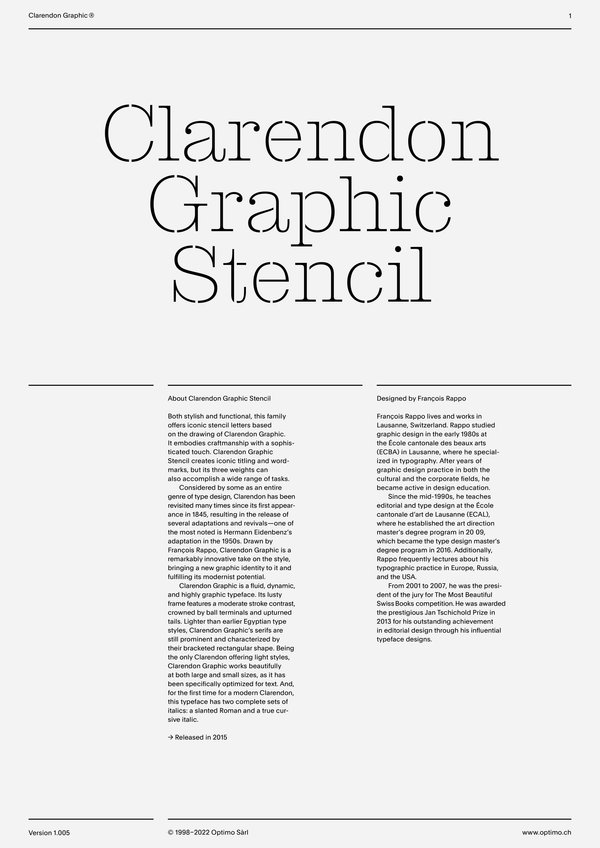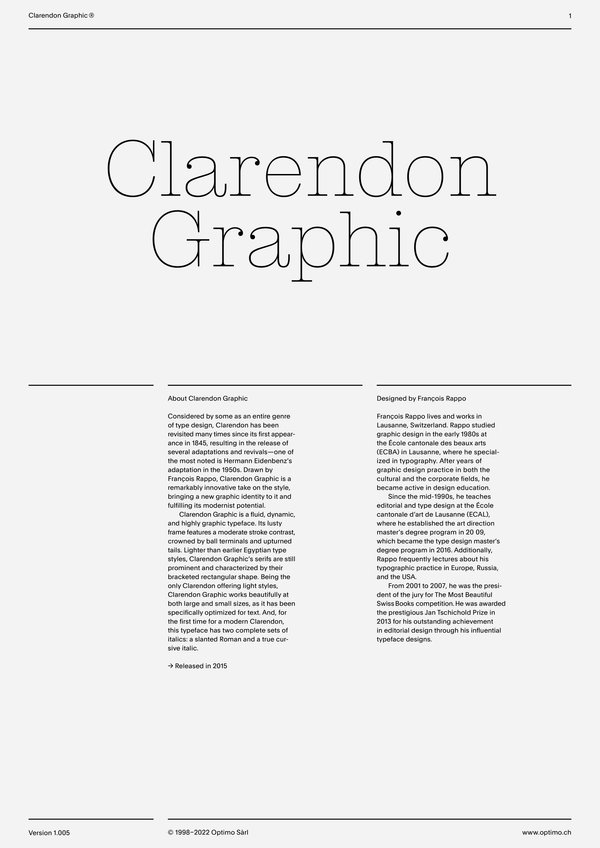
Clarendon Graphic
Clarendon Graphic Stencil
Case Sensitive Forms
All Caps [cpsp]
This function formats the text in uppercase and adjusts spacing between all capital letters. It also applies the ‘Case Sensitive Forms’ feature which replaces certain characters with alternates that are better suited for all capital text, especially related to punctuation.
Contextual Alternates
Contextual Alternates [calt]
This feature adapts the position of a glyph after its surrounding context. For instance, a dash placed between two uppercase letters or numbers will be replaced by an uppercase version of the dash, slightly higher. This feature is usually active by default in Adobe applications.
Contextual Alternates
[calt]
This feature adapts the position of a glyph after its surrounding context. This feature is usually active by default in Adobe applications.
Tabular Lining Figures
Tabular Lining Figures [tnum–lnum]
Based on the proportions of the capitals, lining figures have an invariable height. With the combination of the tabular spacing format, the width of each numeral is uniformized. This feature is useful when numerals need to all lined up. It facilitates the reading of numbers set within columns or tables. As some applications don’t have access to this feature, proportional figures are set as the default choice.
Proportional Oldstyle Figures
Proportional Oldstyle Figures [pnum–onum]
Based on the design of the lowercase, oldstyle figures have varying ascenders and descenders. Like most of the letters, each number has an appropriate width based on its shape. The combination of oldstyle figures with proportional setting generate numerals perfectly adapted for text.
Tabular Oldstyle Figures
Tabular Oldstyle Figures [tnum–onum]
Based on the design of the lowercase, oldstyle figures have varying ascenders and descenders. With the combination of the tabular spacing format, the width of each numeral is uniformized. This feature is useful when numerals need to all lined up. It facilitates the reading of numbers set within columns or tables.
Fractions
With this feature, any numbers separated by a slash will automatically turn into a fraction. To fit in fraction configuration, numerals have been designed smaller and their weights have been adjusted to suit the typeface.
This feature replaces any letter following a numeral with its matching superior letters. Spanish, Portuguese and Italian language uses the feminine and masculine ordinal indicators such as ‘a’ for for 1º, 1ª. Ordinals are designed to match the weight of the typeface.
Numerators [numr]
This feature substitutes glyphs with their matching smaller alternates. The numerators are the same glyphs that are used to create fractions, their vertical position remains within the capital letters height. These glyphs are reduced in size and designed slightly heavier to keep them consistent with the rest of the font.
This feature substitutes glyphs with their matching smaller alternates and low position glyphs. The denominators are the same glyphs that are used to create fractions, their vertical position remains within the base line. These glyphs are reduced in size and designed slightly heavier to keep them consistent with the rest of the font.
Superscript/Superiors
This feature substitutes glyphs with their matching smaller alternates which are set slightly above the height of the capital letters. These glyphs are reduced in size and designed slightly heavier to keep them consistent with the rest of the font.
Standard Ligatures
Standard Ligatures [liga]
Standard ligatures replaces a sequence of characters with a single ligature glyph, they are designed to improve kerning and readability of certain letter pairs.
Small Caps
Small Caps [smcp]
This feature formats the text from lowercase or uppercase to small caps. Depending on the software used, lowercase may be affected only when a word starts with a capital.
Clarendon Graphic is a fluid, dynamic, and highly graphic typeface. Its lusty frame features a moderate stroke contrast, crowned by ball terminals and upturned tails. Lighter than earlier Egyptian type styles, Clarendon Graphic’s serifs are still prominent and characterized by their bracketed rectangular shape. Being the only Clarendon offering light styles, Clarendon Graphic works beautifully at both large and small sizes, as it has been specifically optimized for text. And, for the first time for a modern Clarendon, this typeface has two complete sets of italics: a slanted Roman and a true cursive italic.